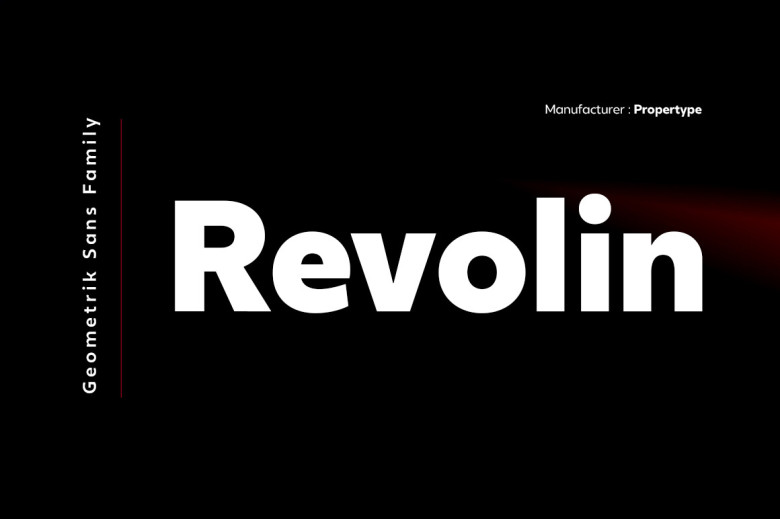
Revolin Font
Revolin is an impressive geometric sans font with 18 styles. It combines strong geometric characters with modern, clean cut details for an impressive font with its own distinct character and personality. Revolin stands out with its striking repeated designs that create a clear and consistent rhythm, making it easily readable for everyday life use.
There are nine weights designed to fill spaces without creating loud sounds while appearing smooth and confident in its presence. The Revolin Family features this contemporary redesign of classic geometric style fonts suitable for branding, logos, signage, interface design and even graphic design – with high X height and bold capital letters to provide clarity across weight ranges and optically corrected to improve reading.
A 12deg slant allows full expression. Slant matching 12o allows full expression. Slanted letters create fullness. A combination of factors combined makes Revolin an exemplary choice when it comes to logo design, signage design or even interfaces design projects.
Revolin Sans Serif Font Family